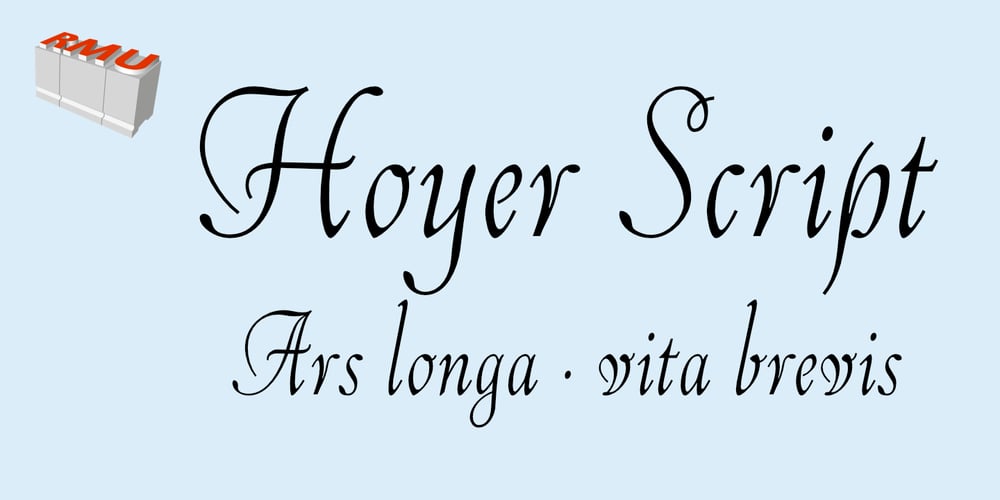
Hoyer Script
Hoyer Script font
Hoyer Script Font Family was designed by Ralph M. Unger and published by RMU. Hoyer Script contains 1 styles and family package options. Hoyer Script™ is a fresh redesign of Hans Hoyer’s Schoenschrift, a slender vintage italic with a calligraphic touch. This font should be used like my blackletter fonts. It means that the s-key is occupied by the long s, and the round s lies on the #-key. By typing N, o, and period plus activating Ordinals feature you will get an old-style number sign.